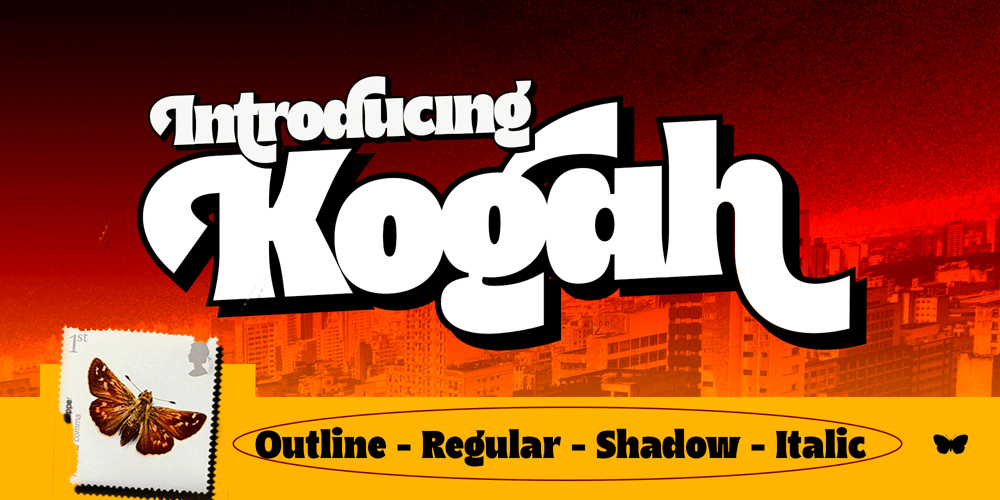
Kogah Font Family was designed by Sidik Sidik and published by Differentialtype. Kogah contains 6 styles and family package options. Kogah is a bold display serif font with a retro feel.Its bold weight and clean lines make it perfect for headlines, logos and other high-impact design elements. Kogah comes with six styles that will add to your options for combining them.Keep in mind that the font is PUA encoded, meaning you can easily access all the fun glyphs and swashes.